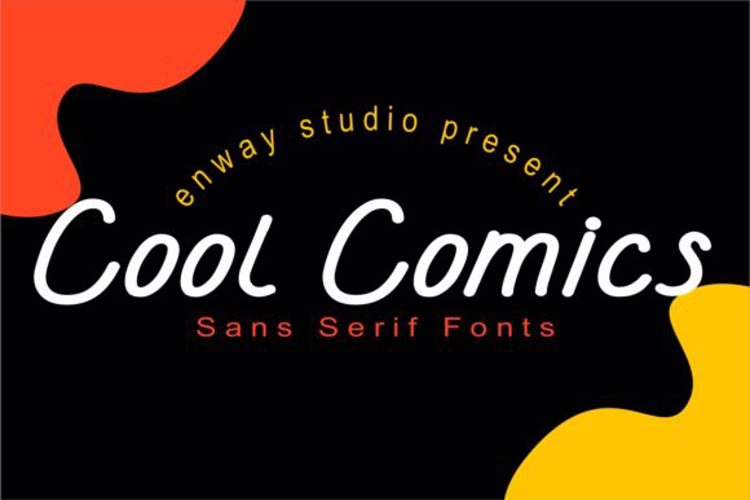
Cool Comics Sans Serif Font
Cool Comics Sans Serif Fonts is an elegant and futuristic sans serif font with a light feel. Use it to add a modern touch to any design project!